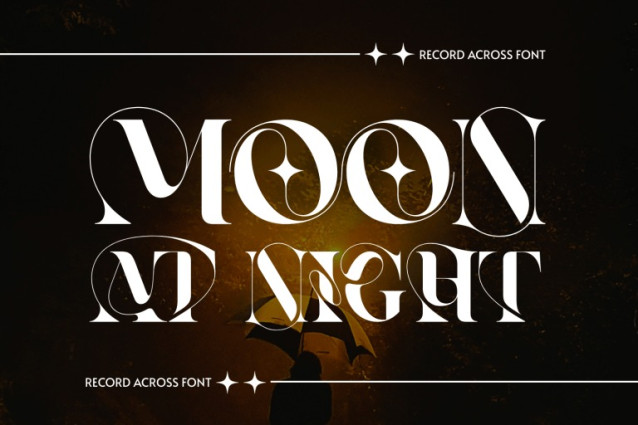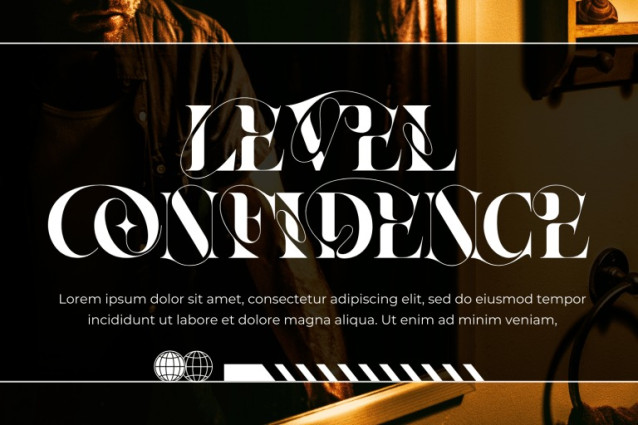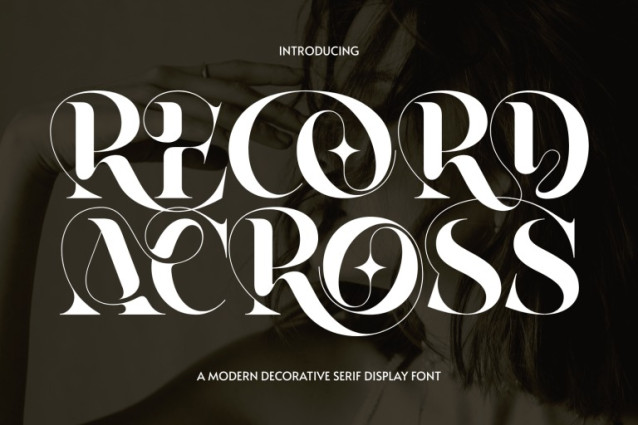
Record Across Font
Record Across – Ligature Serif Font is a high-contrast decorative serif display font that embodies elegance, drama, and ornamental sophistication. Each character is crafted with sharp contrasts, refined curves, and unique diamond-shaped counters that lend a luxurious and stylish appearance. The font balances classical serif structures with avant-garde detailing, making it both timeless and contemporary. Perfect for branding, fashion campaigns, magazine headlines, wedding invitations, luxury packaging, and artistic posters, this typeface brings a sense of grandeur and exclusivity to any design project.
🔤Font Features:
Uppercase Letters
~100 Special Ligatures
Accented Characters for multilingual support
Beautiful alternates and ornamental swashes
🔤About 100 ligatures combined with Stylistic Alternates Font:
AC AD AL AN AR AS AT AU AV BE CA CE CH CO CT DE DI EA EC ED EE EL EM EN EP ER ES ET FE FO FR GE HA HE HI HO IE IC IL IN IO IR IS IT JU KE LA LE LI LL LO LY MA ME MI NC ND NE NG NO NT NS OC OF OM ON OO OP OR OT OU OW PA PR RA RD RE RI RO RS RT SE SH SI SO SS ST TA TE TH TI TO TR TT UM UN UR VE WI WO